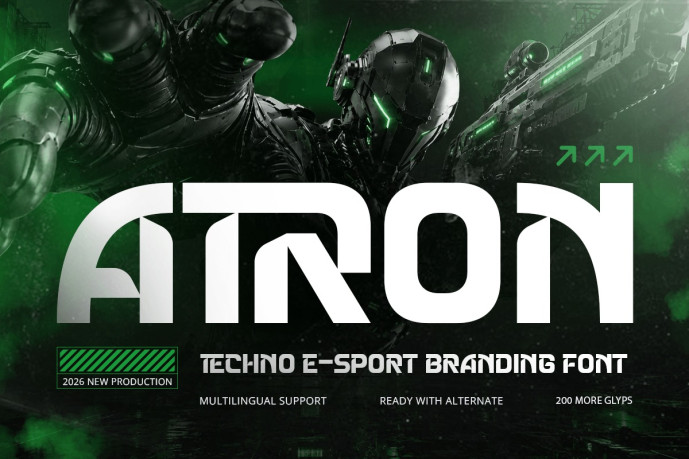
Atron – Techno E-Sport Branding Font
Atron – Techno Esports Branding Font is a futuristic display font designed for esports branding, gaming logos, technology identities, streaming graphics, and digital visual communication. Inspired by cyber aesthetics, competitive gaming, and next-generation technology, Atron combines bold geometric letterforms with modern techno styling to create a powerful visual identity for digital-first brands.
Featuring sharp angular characters, futuristic construction, and high-impact display styling, Atron delivers a dynamic sense of speed, precision, and innovation. Its distinctive design is optimized for logos, headlines, promotional graphics, and branding systems, making it the ideal choice for projects that require a bold and energetic presence.
Whether you’re building an esports team identity, designing a gaming logo, launching a technology brand, or creating digital marketing assets, Atron provides the modern typography needed to elevate your visual communication.
Atron Font Features
Character Set: Uppercase, lowercase, numbers, symbols, and punctuation
Modern techno letterforms optimized for esports branding and logo design
OpenType features ready to enhance your design needs
Atron is Perfect For
Esports team branding and gaming identities
Gaming logos and streaming graphics
Technology startup branding
Digital entertainment and media projects
Website headers and user interface design
Event promotions and tournament graphics
Futuristic display typography
Modern visual identity systems
Whether you’re creating an esports logo, developing a gaming brand, building a technology startup identity, or designing digital promotional graphics, Atron delivers the futuristic style, bold character, and professional quality of a techno esports branding font built for the next generation of creative projects.